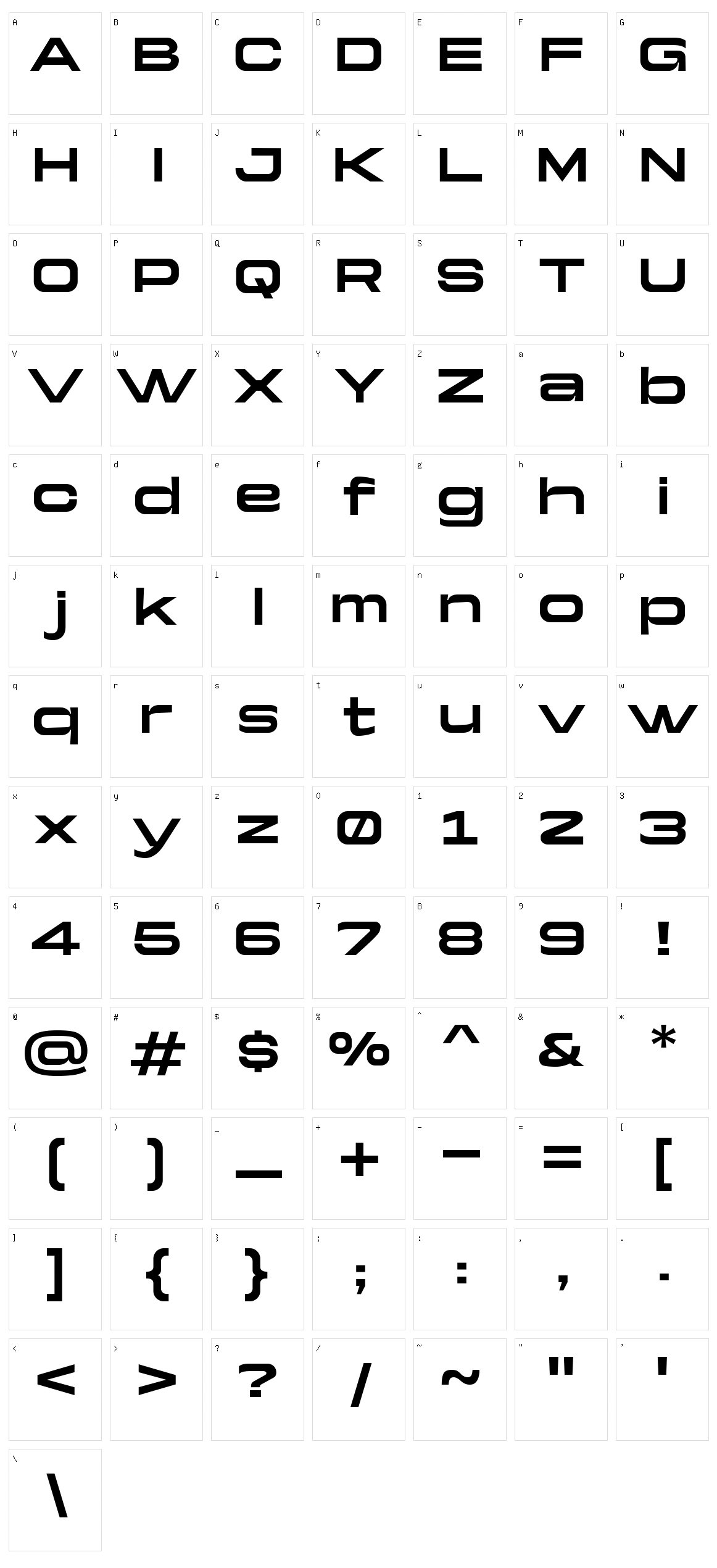
The free font Yapari is carefully designed by Power Type? Foundry, showcasing a thoughtful balance of creativity and usability and falls under the Sans serif font style. When you download the ZIP file, it contains only 725.8 KB of font files, making it lightweight and quick to download. Please review the license details below to understand permitted usage and distribution rights. If license information is not available, we recommend using this font for personal projects only or contacting the author directly for commercial usage permissions.